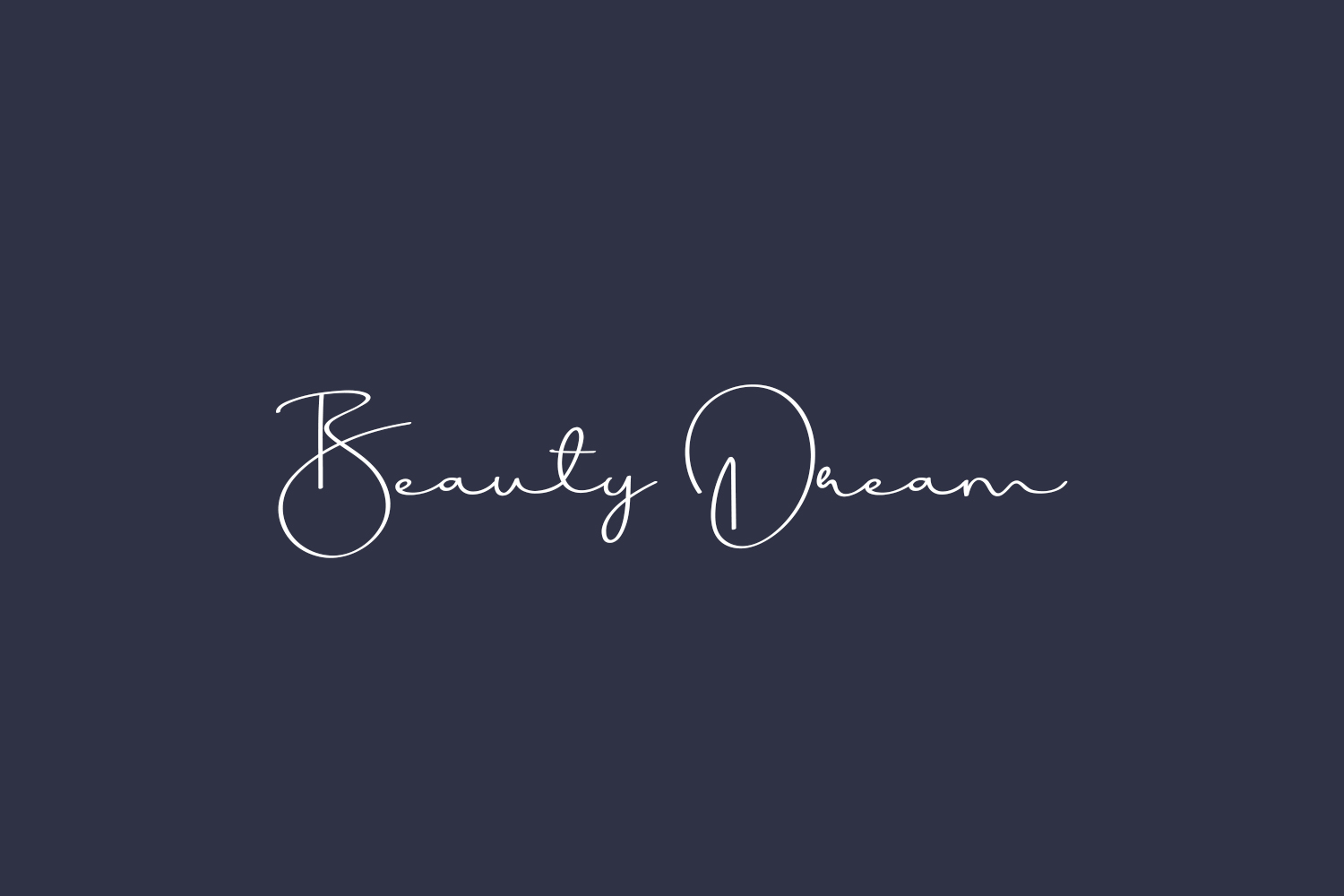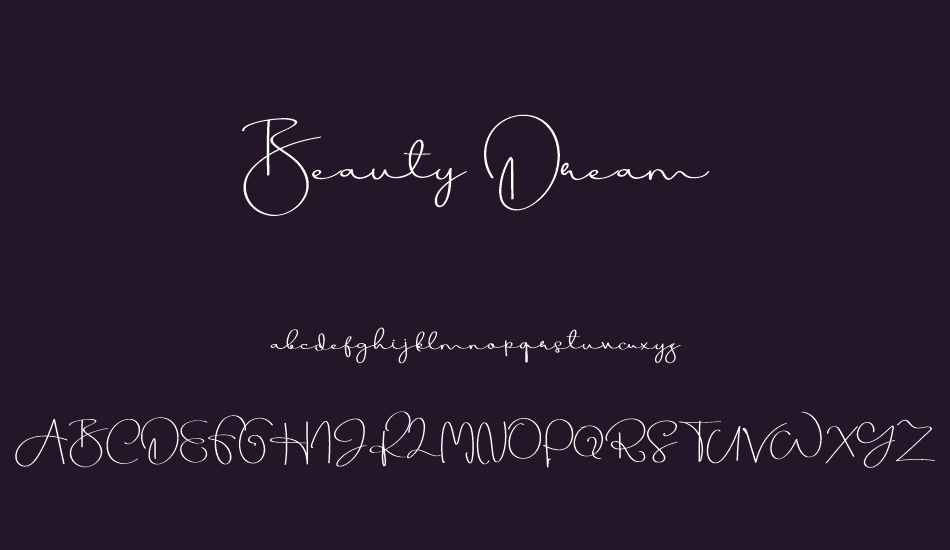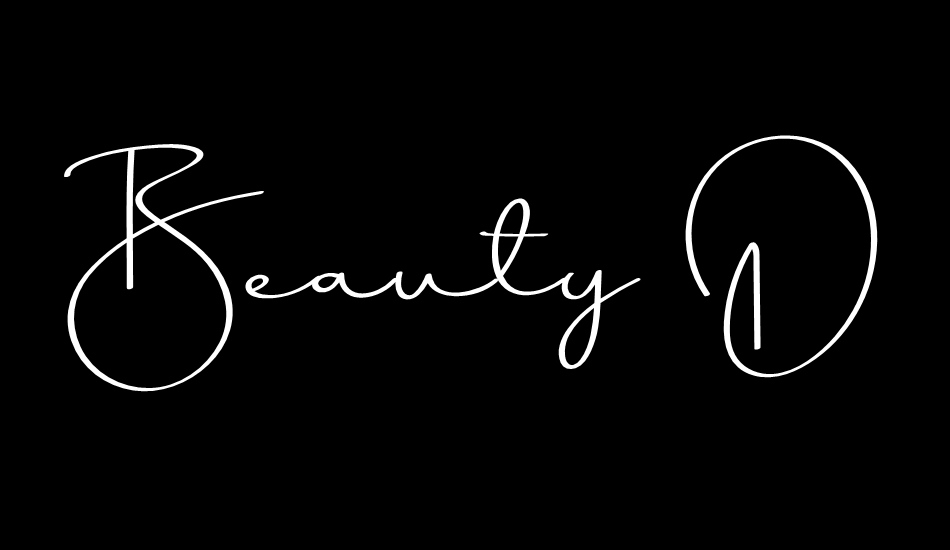
Beauty Dream Font
Beauty Dream Font - Web beauty dream is a free font for personal use created by halymunt studio. Beauty dream is a script type font that can be used on. Beauty dream by halymunt studio. Web beauty dream is a lovely duo font (serif and script). It looks stunning on wedding invitations, thank you cards, quotes,.
Beauty dream by halymunt studio. Web beauty dream is a free font for personal use created by halymunt studio. Beauty dream is a script type font that can be used on. It looks stunning on wedding invitations, thank you cards, quotes,. Web beauty dream is a lovely duo font (serif and script).
Beauty dream by halymunt studio. Beauty dream is a script type font that can be used on. It looks stunning on wedding invitations, thank you cards, quotes,. Web beauty dream is a lovely duo font (serif and script). Web beauty dream is a free font for personal use created by halymunt studio.
Beauty Dream Fonts Shmonts
Web beauty dream is a free font for personal use created by halymunt studio. Web beauty dream is a lovely duo font (serif and script). Beauty dream is a script type font that can be used on. Beauty dream by halymunt studio. It looks stunning on wedding invitations, thank you cards, quotes,.
Beauty Dream free font
Beauty dream by halymunt studio. Beauty dream is a script type font that can be used on. It looks stunning on wedding invitations, thank you cards, quotes,. Web beauty dream is a lovely duo font (serif and script). Web beauty dream is a free font for personal use created by halymunt studio.
Web beauty dream is a free font for personal use created by halymunt studio. Beauty dream is a script type font that can be used on. Web beauty dream is a lovely duo font (serif and script). It looks stunning on wedding invitations, thank you cards, quotes,.
Beauty Dream Font
Web beauty dream is a lovely duo font (serif and script). Beauty dream by halymunt studio. It looks stunning on wedding invitations, thank you cards, quotes,. Web beauty dream is a free font for personal use created by halymunt studio. Beauty dream is a script type font that can be used on.
Beauty Dream Font Halymuntstudio FontSpace
Web beauty dream is a free font for personal use created by halymunt studio. Beauty dream is a script type font that can be used on. Beauty dream by halymunt studio. Web beauty dream is a lovely duo font (serif and script). It looks stunning on wedding invitations, thank you cards, quotes,.
Beauty Dream free font
Web beauty dream is a lovely duo font (serif and script). Web beauty dream is a free font for personal use created by halymunt studio. It looks stunning on wedding invitations, thank you cards, quotes,. Beauty dream is a script type font that can be used on. Beauty dream by halymunt studio.
Beauty Dream Font Halymuntstudio FontSpace
Web beauty dream is a free font for personal use created by halymunt studio. Web beauty dream is a lovely duo font (serif and script). Beauty dream is a script type font that can be used on. It looks stunning on wedding invitations, thank you cards, quotes,. Beauty dream by halymunt studio.
Web beauty dream is a free font for personal use created by halymunt studio. Web beauty dream is a lovely duo font (serif and script). Beauty dream is a script type font that can be used on. Beauty dream by halymunt studio. It looks stunning on wedding invitations, thank you cards, quotes,.
Download Beauty Dream Font for FREE Font Studio
Web beauty dream is a free font for personal use created by halymunt studio. Beauty dream is a script type font that can be used on. Beauty dream by halymunt studio. Web beauty dream is a lovely duo font (serif and script). It looks stunning on wedding invitations, thank you cards, quotes,.
Beauty Dream Font Download
Web beauty dream is a free font for personal use created by halymunt studio. Beauty dream is a script type font that can be used on. Beauty dream by halymunt studio. It looks stunning on wedding invitations, thank you cards, quotes,. Web beauty dream is a lovely duo font (serif and script).
Beauty Dream By Halymunt Studio.
It looks stunning on wedding invitations, thank you cards, quotes,. Web beauty dream is a lovely duo font (serif and script). Beauty dream is a script type font that can be used on. Web beauty dream is a free font for personal use created by halymunt studio.